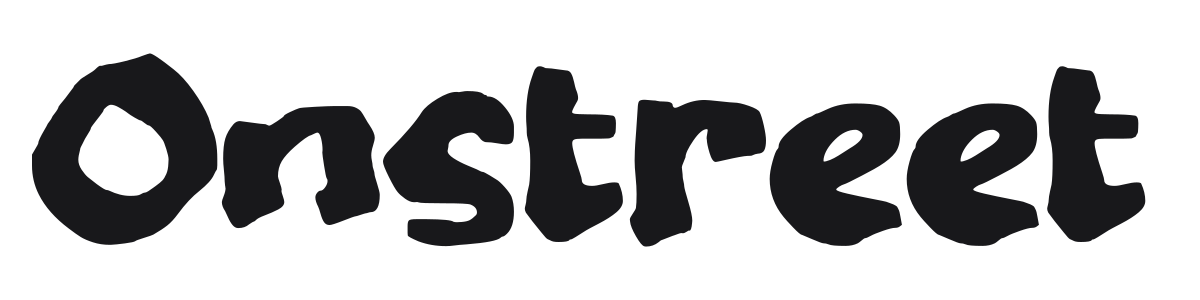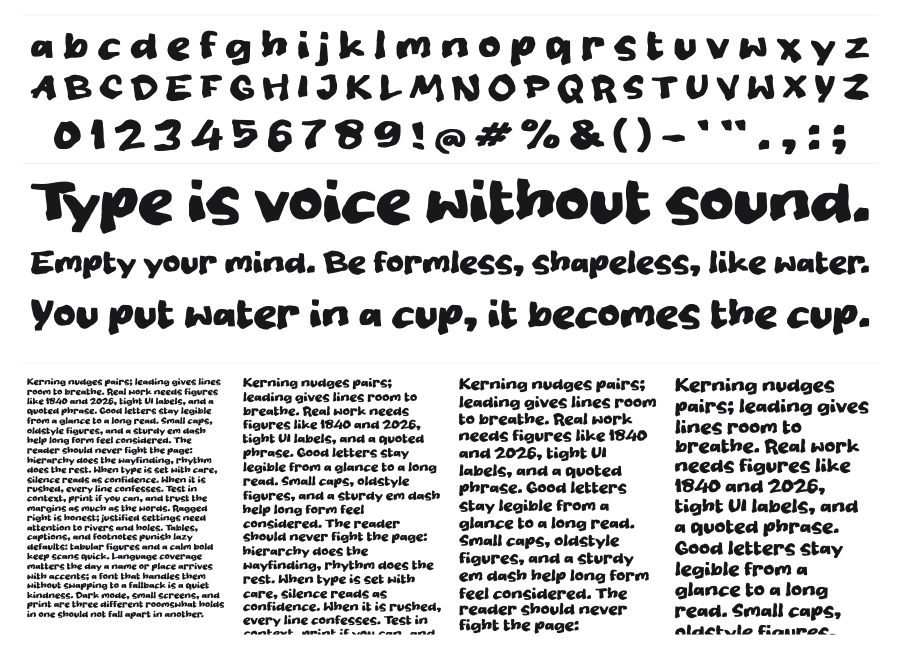
Onstreet
Onstreet is a heavy casual script with thick, rounded strokes and an unmistakable street-art energy. The irregular outlines and chunky weight make it feel like it was dashed off with a fat marker on a wall or sketchbook page. It hits hard at large sizes and suits any project that wants to feel raw, urban, and alive.